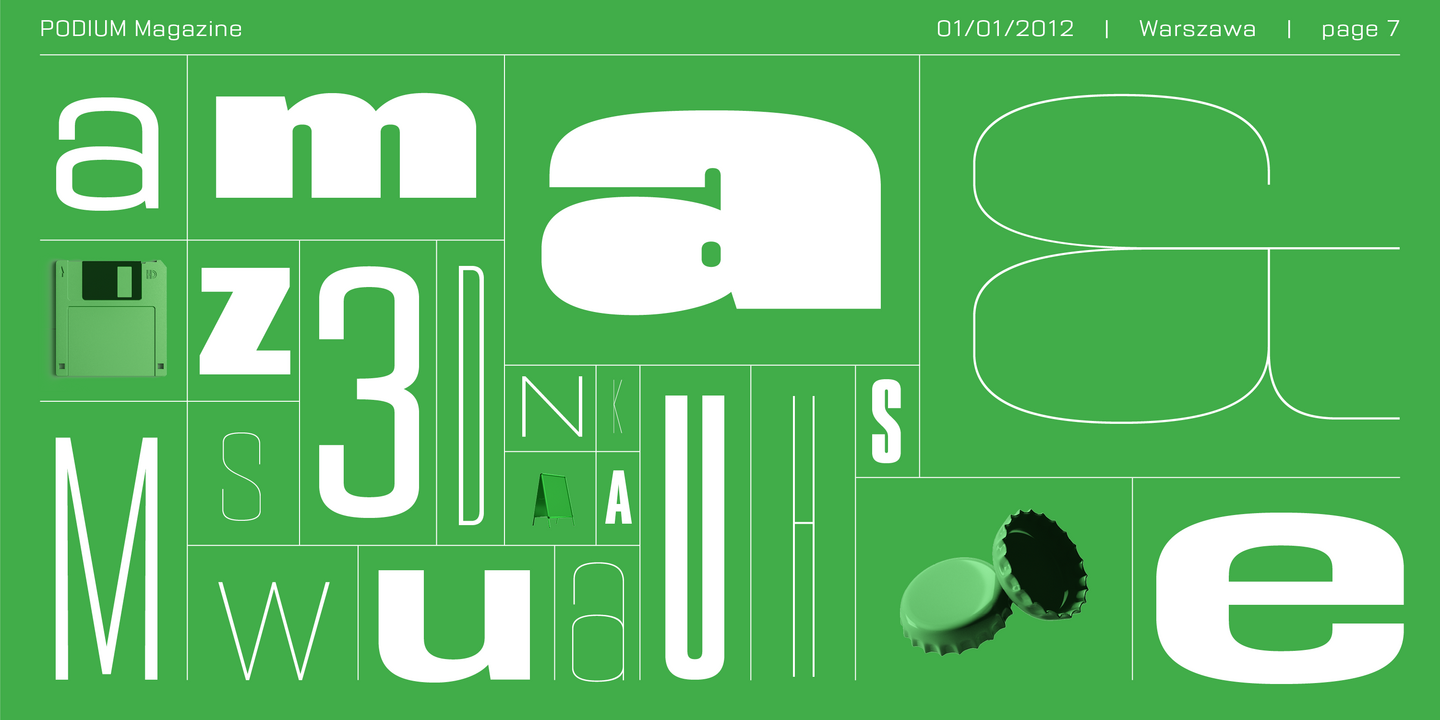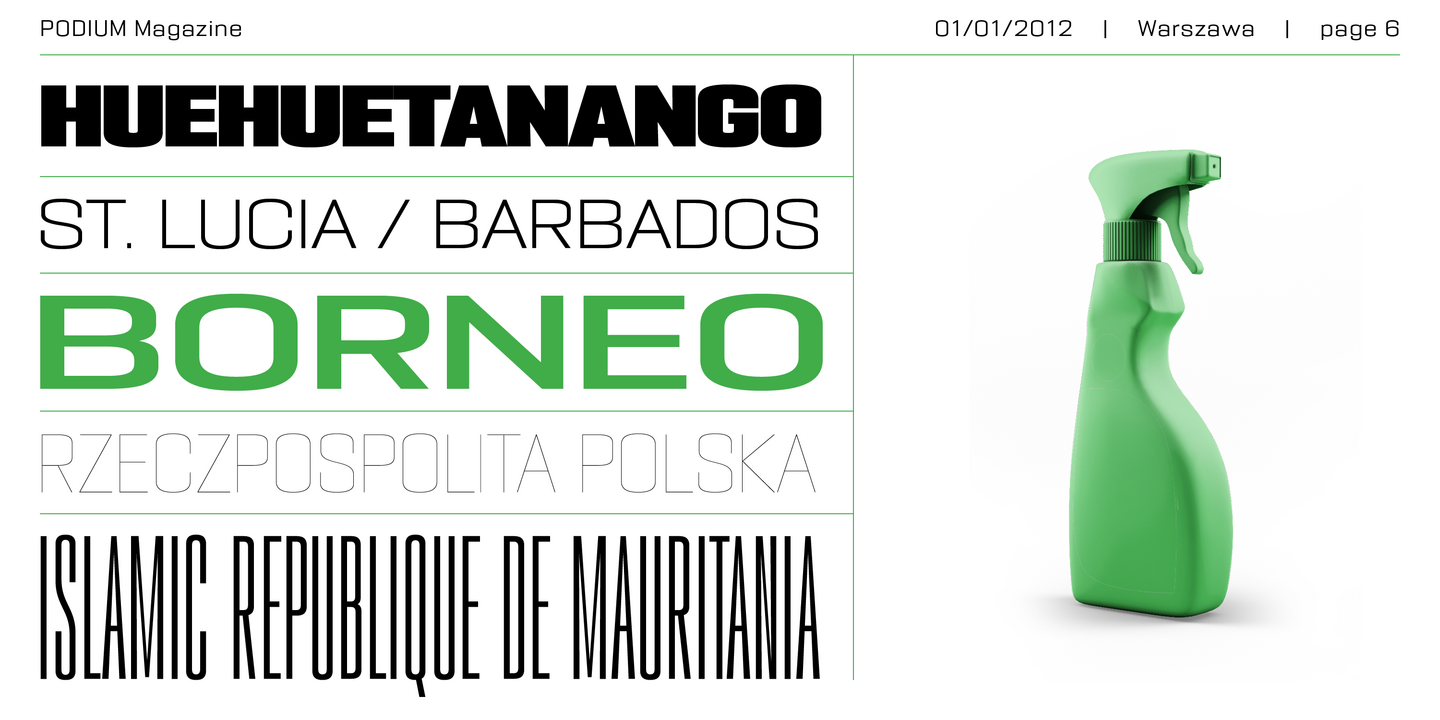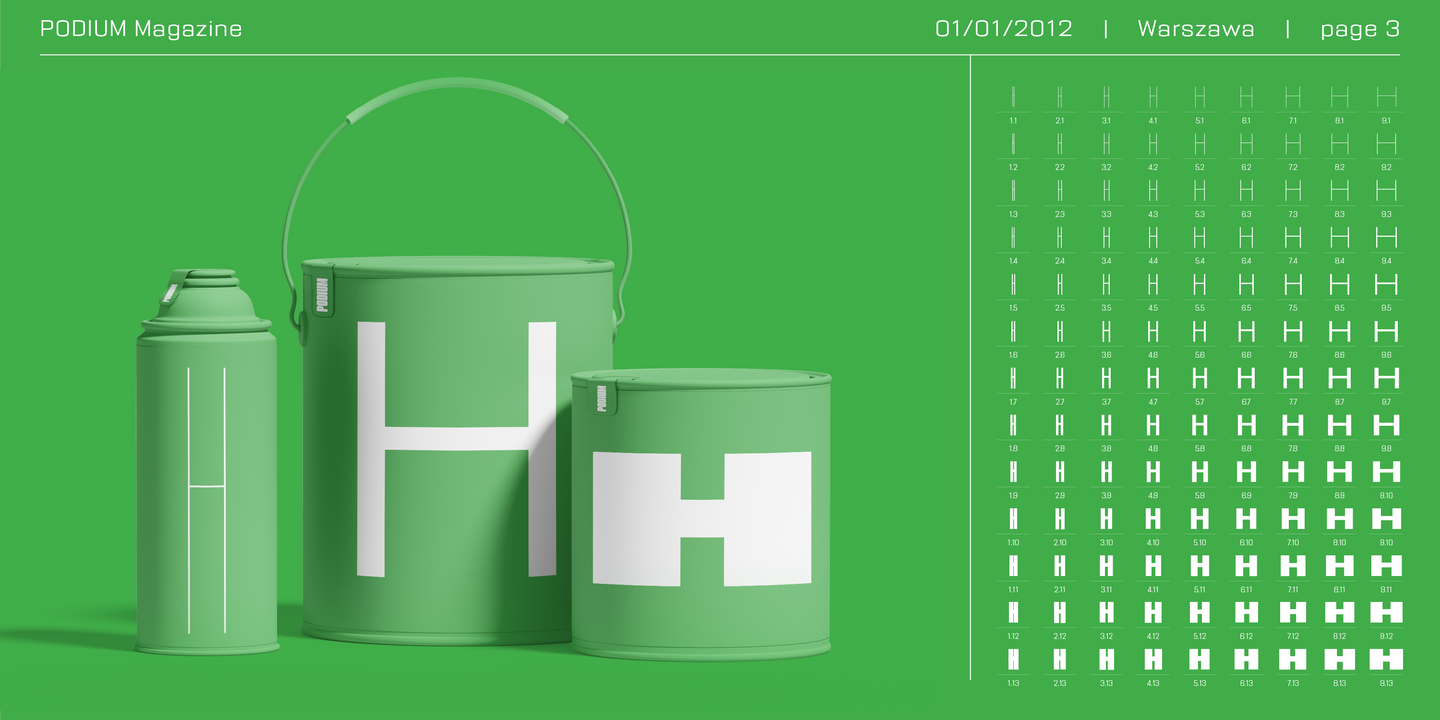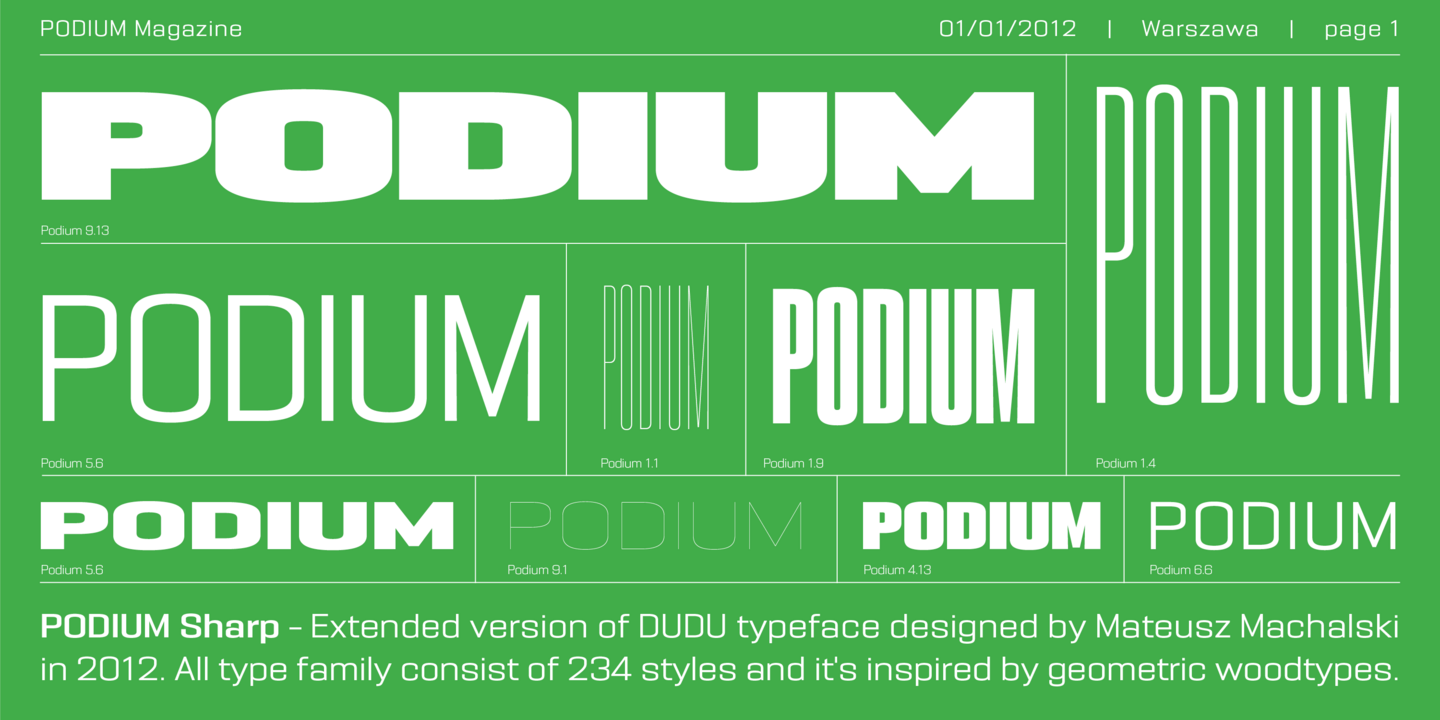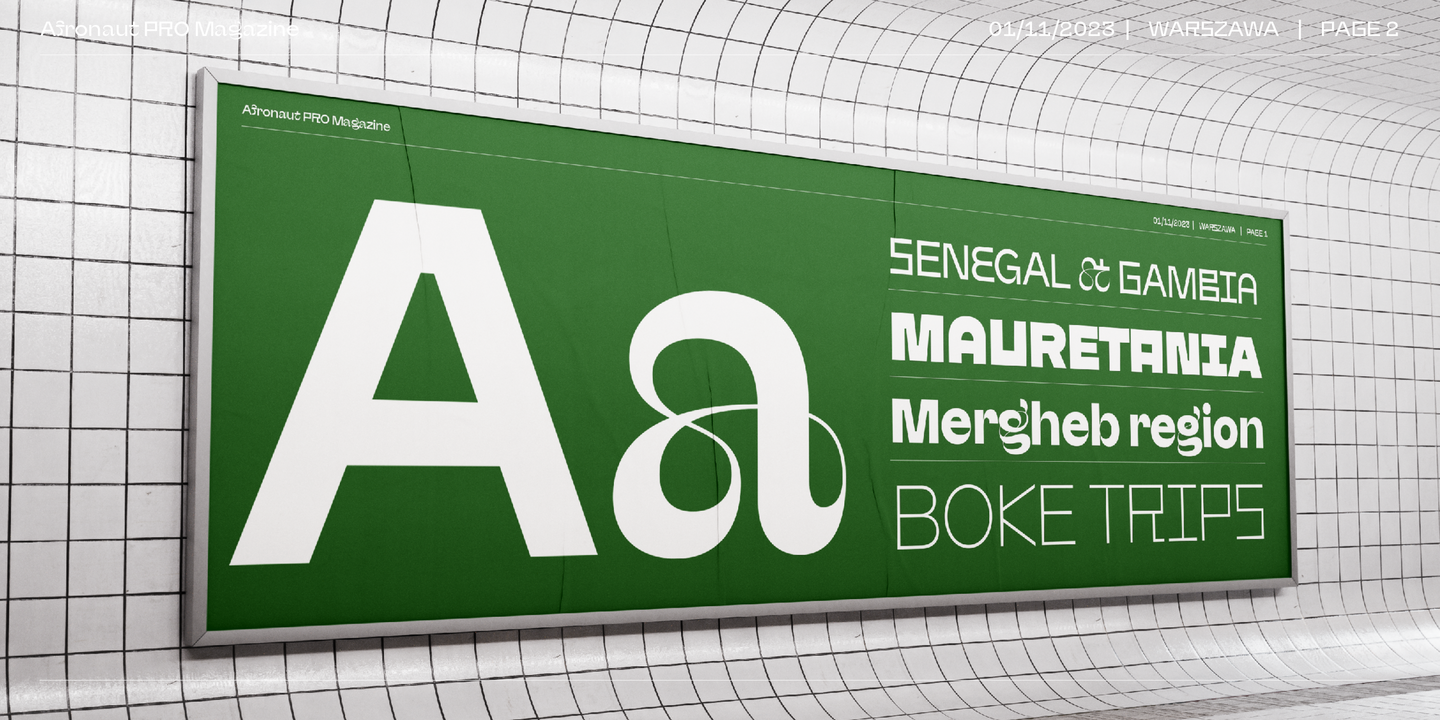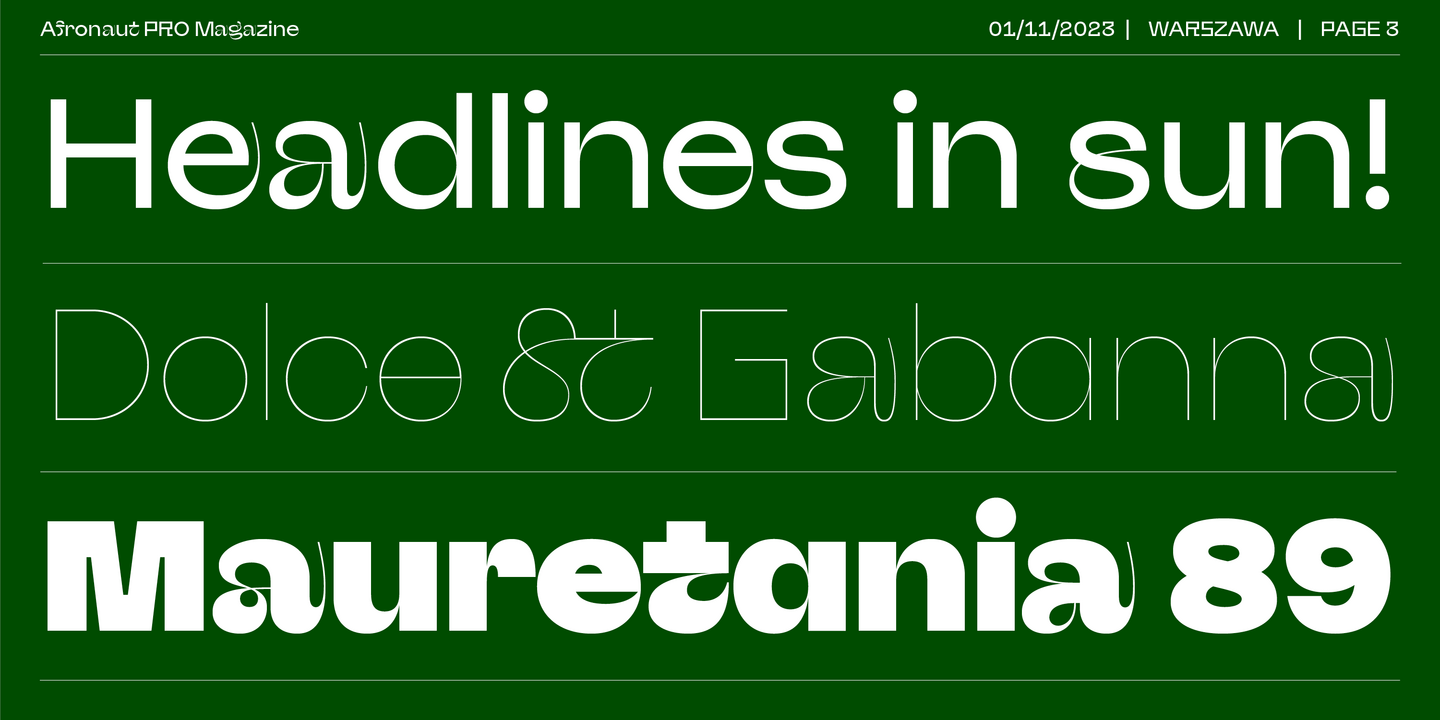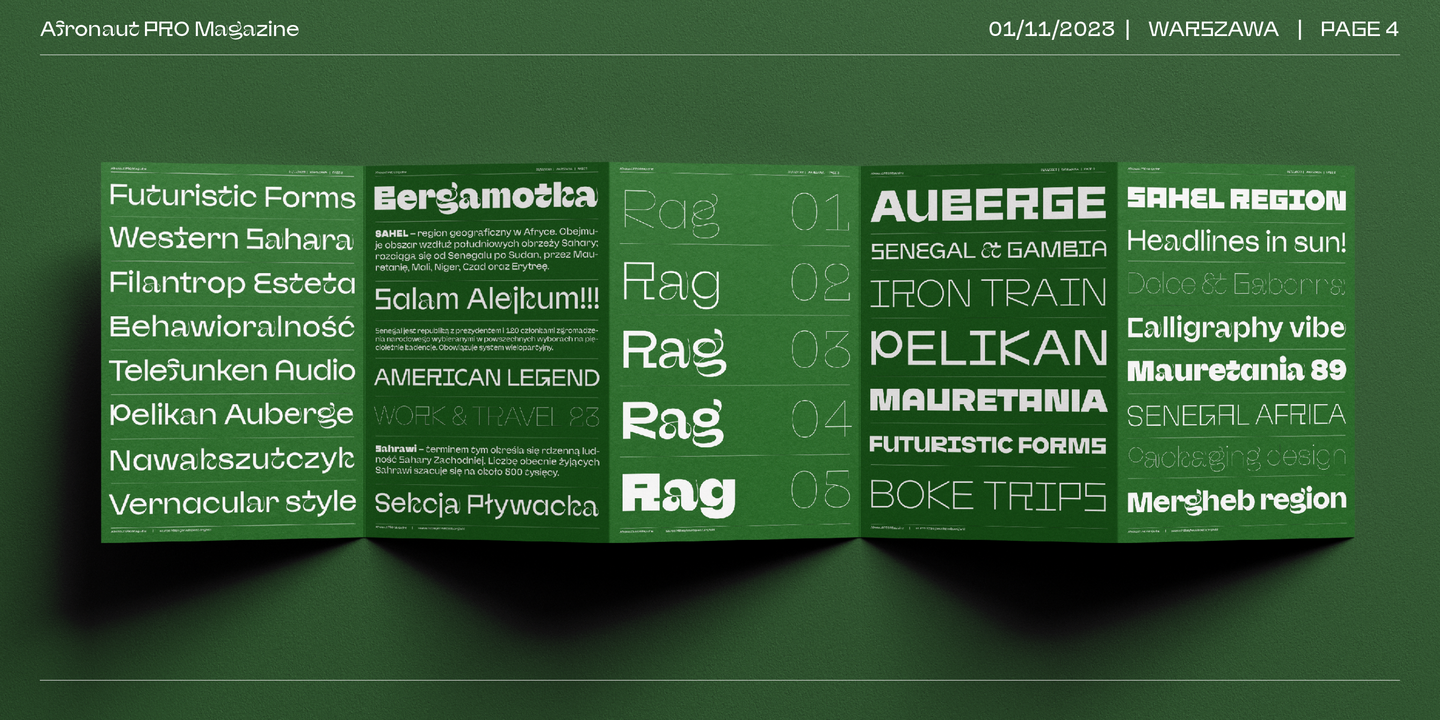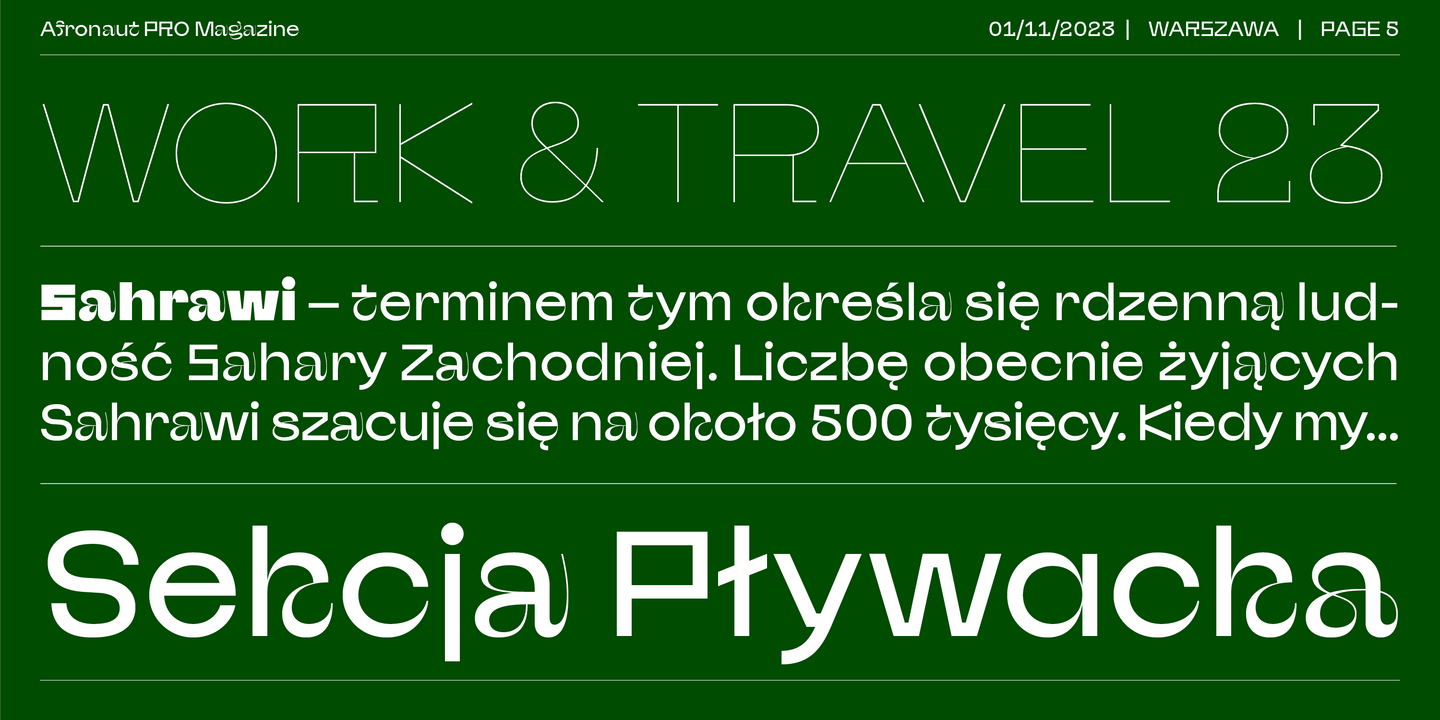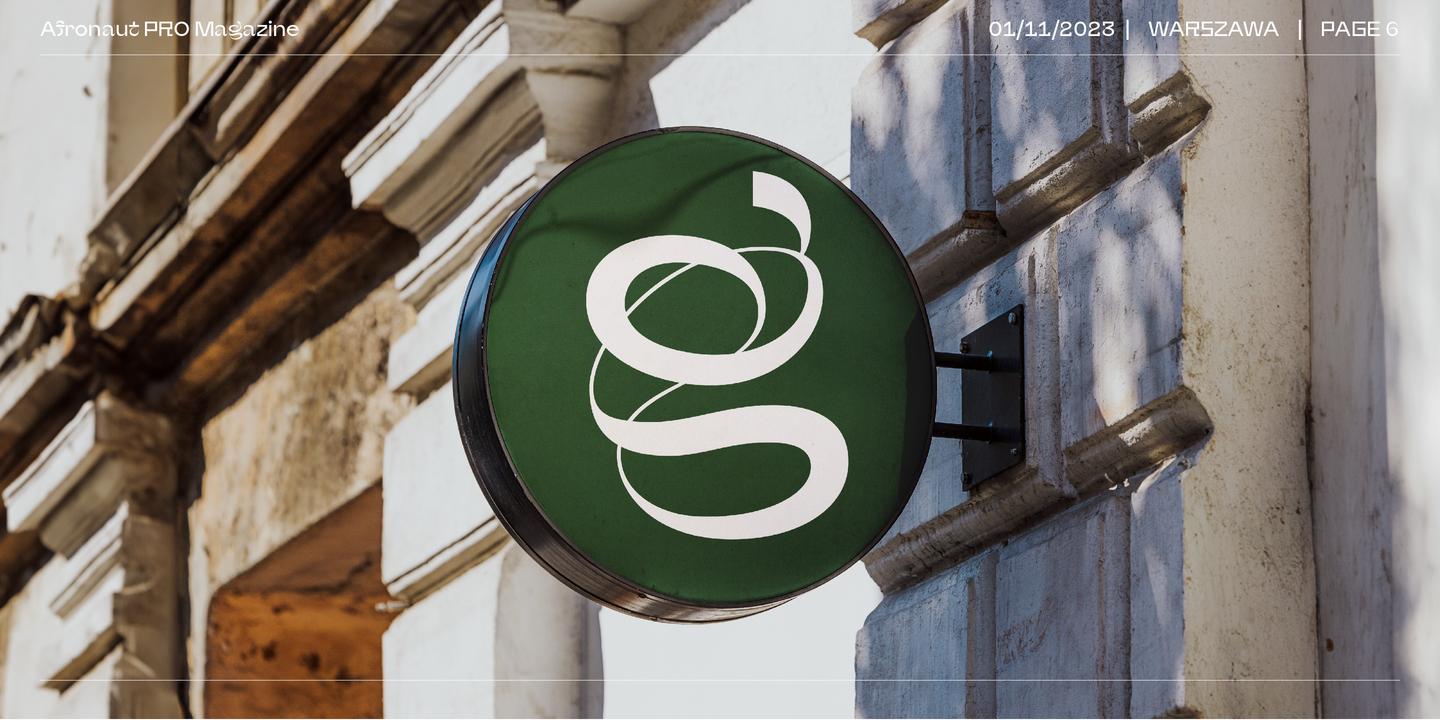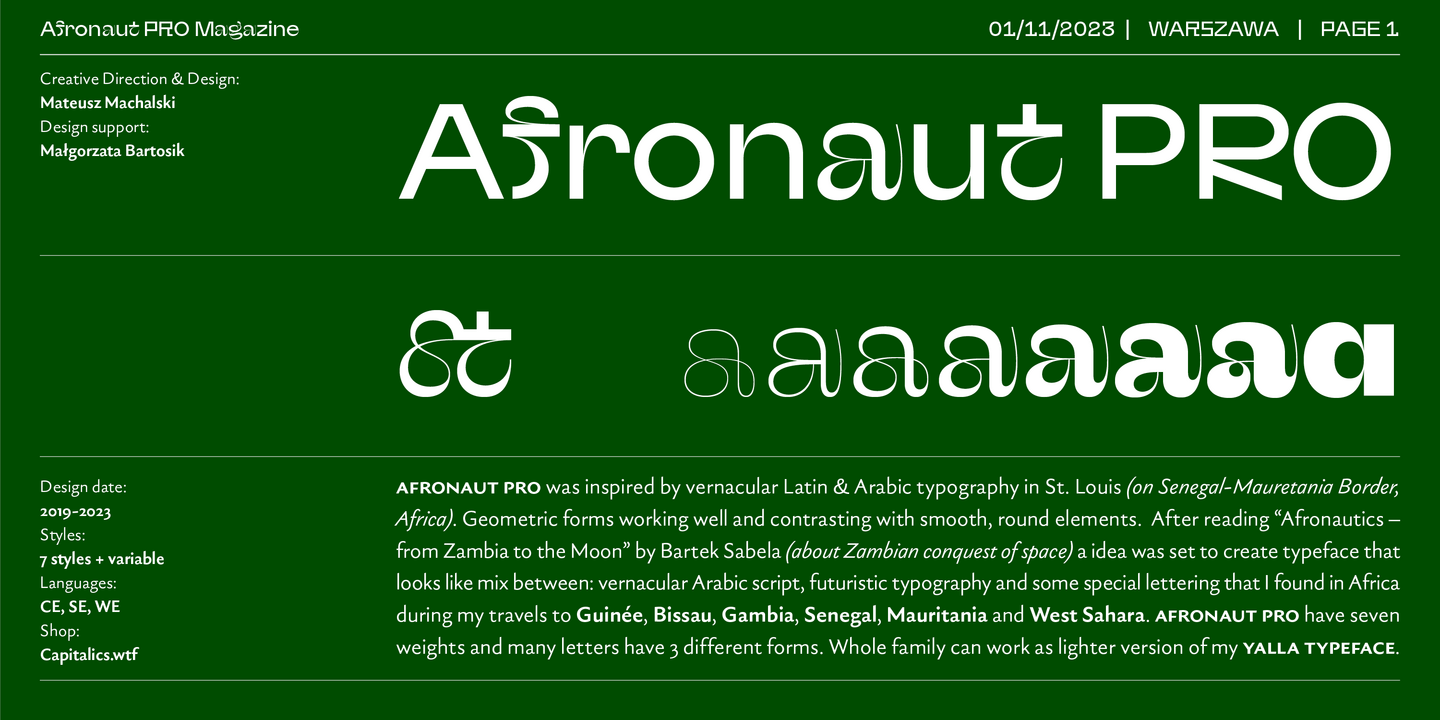
Alfabet is the result of over 3 years of work on a typeface inspired by Swiss and German designers & researchers. The main idea was to create a sans-serif with geometric and strong feeling. Whole family will work wherever we want to emphasize modernity and a rational way of visual thinking. Alfabet will be perfect choice for multiscript branding purposes, all styles support Latin (+Vietnamese), Greek and Cyrillic scripts (with Ukrainian,Bulgarian and Serbian forms). The whole family consists of 20 styles – 10 weights and matching italics. In addition to the rich set of characters, Alfabet includes Alternates, Superscript, Subscript, Ligatures, Arrows set and 7 different styles of digits.
Afronaut PRO (New version of typeface published in 2019) was inspired by vernacular Latin & Arabic typography in St. Louis (on Senegal-Mauretania Border, Africa). Geometric forms working well and contrasting with smooth, round elements. After reading “Afronautics – from Zambia to the Moon” by Bartek Sabela (about Zambian conquest of space) a breif was set to create typeface that looks like mix between: vernacular Arabic script, futuristic typography and some special lettering that I found in Africa during my travels to Guinée, Bissau, Gambia, Senegal, Mauritania and West Sahara. Afronaut has seven weights, also many letters have 3 different forms. Afronaut PRO can work as regular version of my Yalla Typeface.
Podium Sharp is Extended version of DUDU typeface designed in 2012. After many years I’ve decided to rebuild and develop this typeface by adding new masters and weights. Finally PODIUM Sharp consist of 234 styles: from ultra compressed hairline to extra expanded heavy. Main purpose of this project was idea to make hybrid between different modular and geometric woodtypes that I found in old polish specimens: Rex, Blok, Bacarat etc. Thanks to big range of different styles, PODIUM will be perfect choice for visual identities, posters and display usage. For better comfort of using PODIUM I’ve prepared new idea of styles naming based on Frutigres’s Universe and Climbing evaluation. First digit means width and the second weights of style. (So for example style 1.1 is ultra compressed hairline, 6.5 is something like regular and 9.13 is ultra expanded heavy.
Machalski
Type Designer
Mateusz Machalski
Dr hab. Mateusz Machalski B. 1989; studied at the Faculty of Graphic arts in the Academy of Fine Arts in Warsaw (2009–2014) completed with Rector's distinction. He works at the Faculty of Graphics in the Studio of Multimedia Artistic Creation. Selected as the Designer of the Year 2019 in the Polish Graphic Awards. Winner of the scholarship of the Minister of Science and Higher Education for outstanding young scientists. Five-time scholarship holder of the Minister of Culture. Winner of the "Młoda Polska" scholarship of the National Center for Culture. Member of the board of the Association of Applied Graphic Designers. Member of the program board of the International Poster Biennale. Member of ATypI (Association Typographique Internationale). Winner of the Best of Design 2018 award - Klub Twórców Reklamy. Featured as "Ascender 2018" by Type Directors Club New York. He received the "Animator 2020" award in the DESIGN ALIVE competition. Decorated by the President of the Republic of Poland with the Medal of the Centenary of Regained Independence. Artistic director of "newonce.paper" and "Warsawholic" magazines. Author of over 30 type families, numerous corporate and multi-script typefaces and over 100 visual identifications of companies, institutions and events. Team leader in revival project "BRYGADA 1918" which premiered at the Presidential Palace with the participation of the President. Author of the intergenerational Bona Nova project carried out together with Andrzej Heidrich – the designer of Polish banknotes. Co-founder of the BORUTTA creative group, RESPECT WWA foundation. Author of numerous texts and articles about graphic design, visual culture and typography. Co-author of the TYPOTEKA.PL – Polish Typography Index and numerous exhibitions and cultural events. Parallel to design work, he conducts research projects, workshops and lectures in Poland and abroad.